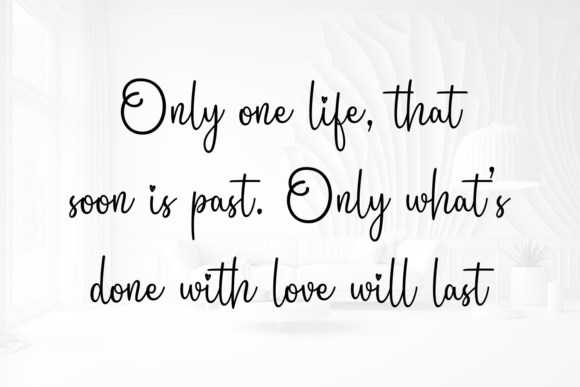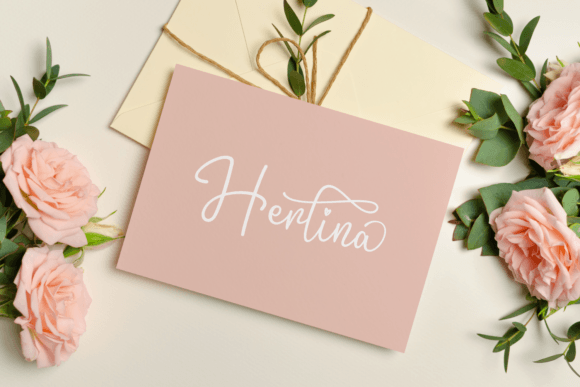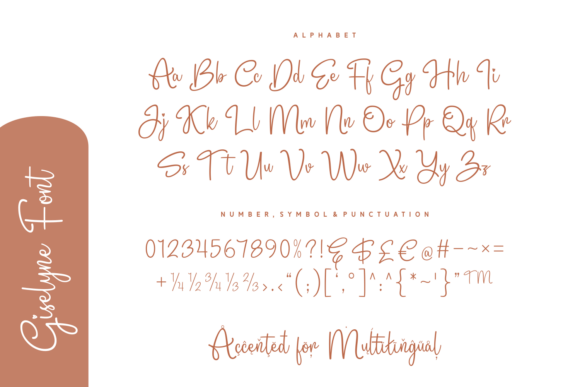
The Giselyne Font: A Modern Handwritten Marvel
I’ll never forget the time I was working on a wedding invitation project, and my client asked for a font that was both elegant and playful. I scoured the internet, tried countless fonts, but nothing seemed quite right. That was until I stumbled upon Giselyne, a modern handwritten font that stole my heart. Its smooth, flowing design and stylish swashes made it the perfect fit for the project. And now, I’m excited to share my love for Giselyne with you!
What I Love About Giselyne ✨
- 💫 Smooth, flowing design that’s perfect for creating elegant and sophisticated content
- 🎨 Stylish swashes that add a touch of playfulness and whimsy
- 📝 Versatile and suitable for a wide range of projects, from wedding invitations to logos and branding
- 👍 Easy to read and understand, even in smaller sizes
- ⚠️ Some users may find the font a bit too script-heavy for certain projects
- ⚠️ Limited availability of certain glyphs and stylistic alternates in older software
The Story Behind Giselyne
Giselyne was designed by a talented type designer who wanted to create a font that was both elegant and playful. Inspired by the flowing curves of handwritten calligraphy, Giselyne was crafted to bring a sense of warmth and sophistication to any project. With its smooth design and stylish swashes, Giselyne has quickly become a favorite among designers and crafters.
Q: Is Giselyne suitable for body text?
A: While Giselyne is beautiful, it’s best suited for headings and titles. For body text, a clearer font may be more suitable.